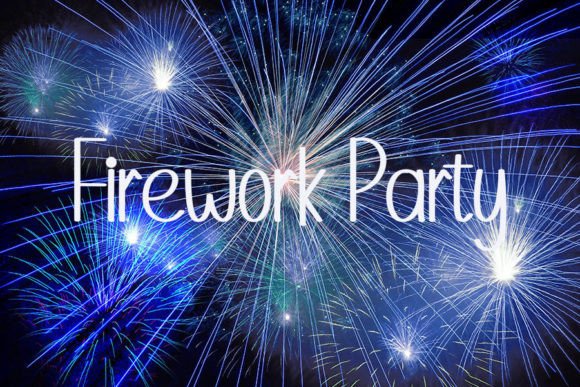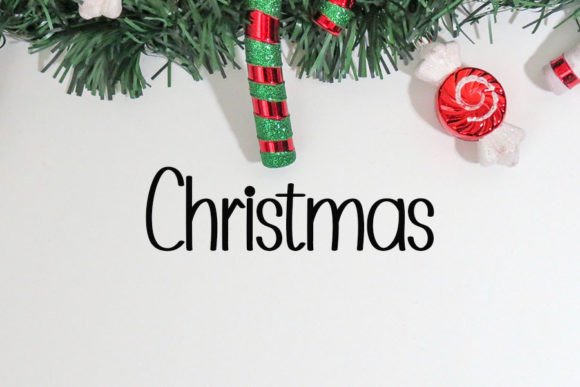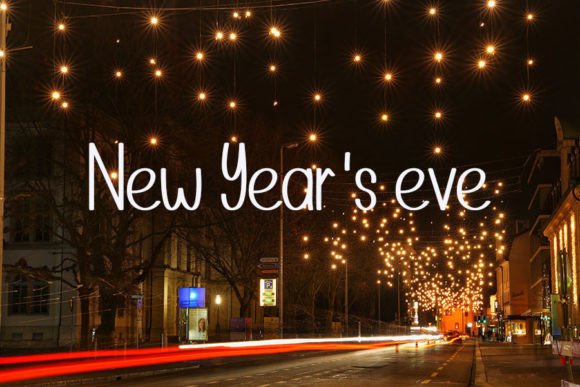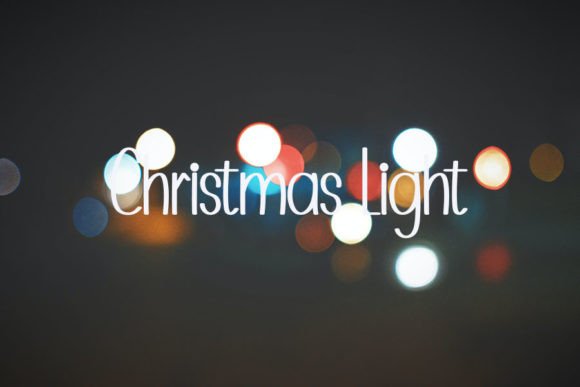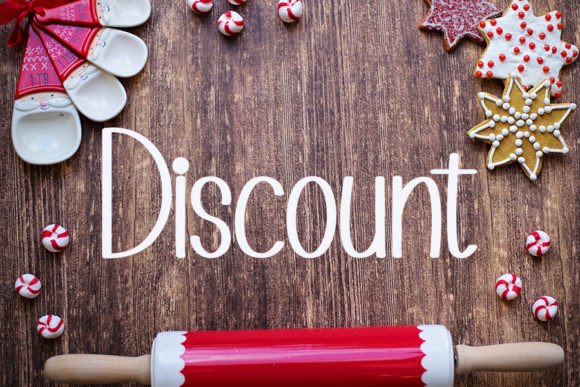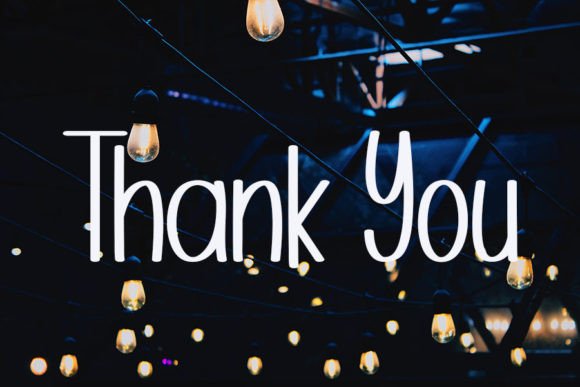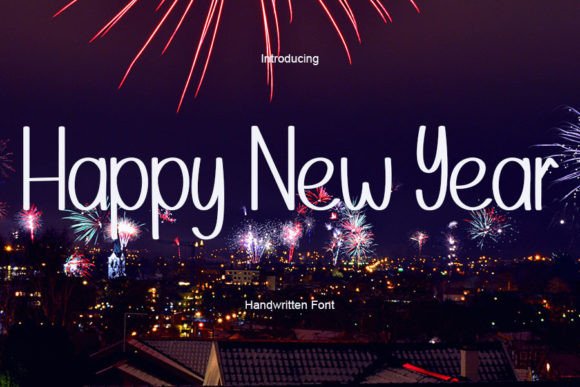
Happy New Year Font: Elevate Your Designs with Elegance and Timeless Style
As the clock strikes midnight on New Year’s Eve, the world welcomes a fresh start, filled with hope and promise. What better way to usher in the new year than with a beautiful and elegant font that captures the essence of celebration and joy? Introducing the Happy New Year Font, a stunning handwritten font that is sure to make your designs shine.
A Neat and Beautiful Handwritten Font
The Happy New Year Font is a meticulously crafted handwritten font, boasting an elegant touch that sets it apart from other fonts. Its unique and refined style makes it perfect for a wide range of projects, from greeting cards and invitations to posters, social media graphics, and more. Whether you’re a designer, crafter, or DIY enthusiast, this font is sure to become your go-to choice for creating spectacular designs.
Distinct and Timeless Style
What makes the Happy New Year Font truly special is its incredibly distinct and timeless style. The font’s elegant curves, flowing lines, and precise lettering create a sense of sophistication and refinement, making it ideal for designs that require a touch of luxury and glamour. The font’s classic style ensures that your designs will remain relevant and stylish for years to come, long after the new year has begun.
Perfect for Your Favorite Projects
The Happy New Year Font is versatile and adaptable, making it suitable for a wide range of projects and applications. Here are some ideas to get you started:
• Greeting Cards and Invitations: Create beautiful and elegant greeting cards, invitations, and party decorations that will make your loved ones feel special.
• Social Media Graphics: Elevate your social media presence with stunning graphics, quotes, and posts that showcase your creativity and style.
• Posters and Flyers: Design eye-catching posters and flyers that grab attention and leave a lasting impression.
• Branding and Packaging: Use the Happy New Year Font to create a cohesive brand identity that exudes elegance and sophistication.
Why Choose the Happy New Year Font?
With so many fonts available, why choose the Happy New Year Font? Here are just a few reasons why this font stands out:
• Unique and Exclusive: The Happy New Year Font is a one-of-a-kind font that will make your designs stand out from the crowd.
• Elegant and Refined: The font’s elegant style and refined lettering make it perfect for designs that require a touch of sophistication.
• High-Quality: The font is crafted with precision and attention to detail, ensuring that it looks great in any design or application.
Get Ready to Fall in Love with Happy New Year Font
In conclusion, the Happy New Year Font is a beautiful and elegant handwritten font that is perfect for designers, crafters, and DIY enthusiasts. Its unique and timeless style makes it ideal for a wide range of projects, from greeting cards and invitations to posters, social media graphics, and more. So fall in love with the Happy New Year Font and use it to create designs that will make your audience smile.